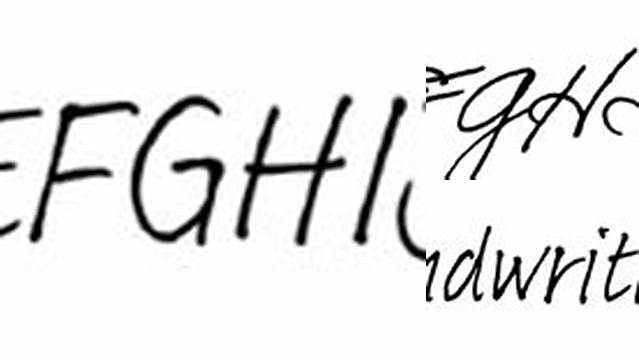
Hey guys! Ever wanted to sprinkle a little bit of personality and that human touch into your designs? Well, you're in luck! Today, we're diving deep into the world of the Adobe Handwriting Frank Font, and the best part? You can get it for free! This font is a gem, perfect for everything from personal projects to spicing up your professional work. Let's explore how you can snag this awesome font and how to use it to make your creations pop.
1. The Magic of the Adobe Handwriting Frank Font
So, what exactly makes the Adobe Handwriting Frank Font so special? This font isn't just a bunch of letters and numbers; it's designed to mimic real handwriting. Think of it as digital calligraphy, but without the ink stains. It's all about that authentic, personal feel. Unlike the sterile, clean look of some fonts, this one brings a warm, inviting vibe to your work. It's like adding a handwritten note to a digital world, which is something that resonates with people. It's perfect for headlines, social media posts, invitations, or any project that needs a touch of human connection. The slight imperfections and variations in the font make it feel genuine, like a friendly message from a friend. The versatility of the Adobe Handwriting Frank Font is another major plus. You can use it in a variety of contexts, from personalizing your website to creating eye-catching marketing materials. It’s not just about aesthetics; it's about creating an emotional bond with your audience. The fact that it's free is simply the icing on the cake, making it accessible to everyone who wants to add a personal, handwritten touch to their designs.
4. Using the Adobe Handwriting Frank Font in Your Designs
4.1. Creative Ideas for Using the Adobe Handwriting Frank Font
Ready to get creative? The Adobe Handwriting Frank Font opens up a world of possibilities. Start by creating social media posts that stand out. Use the font for quotes, captions, or to highlight special offers. Your posts will gain a unique, handmade feel that grabs attention. Design invitations for events. Use the font to write the event details, making your invitations feel personal. Think about designing personalized thank-you cards or greetings for your friends and family. This font brings a warm, human touch that can add a lot of sentiment to these messages. You could also create custom logos or branding materials for small businesses or personal projects. Try experimenting with different colors and backgrounds. The font works well with both bright and neutral shades. For a vintage look, consider pairing it with a textured background or a retro color scheme. Lastly, design digital art or illustrations, integrating the handwritten font for captions or accompanying text. Think about how to create a unified design, where the font complements the other elements. Embrace your imagination and explore the different ways to use this font to bring your projects to life.
10. Where to Find Adobe Handwriting Frank Font Examples
Want to see the Adobe Handwriting Frank Font in action? There are tons of places to find examples. Start by searching online for designs, websites, and social media graphics. You can use terms like